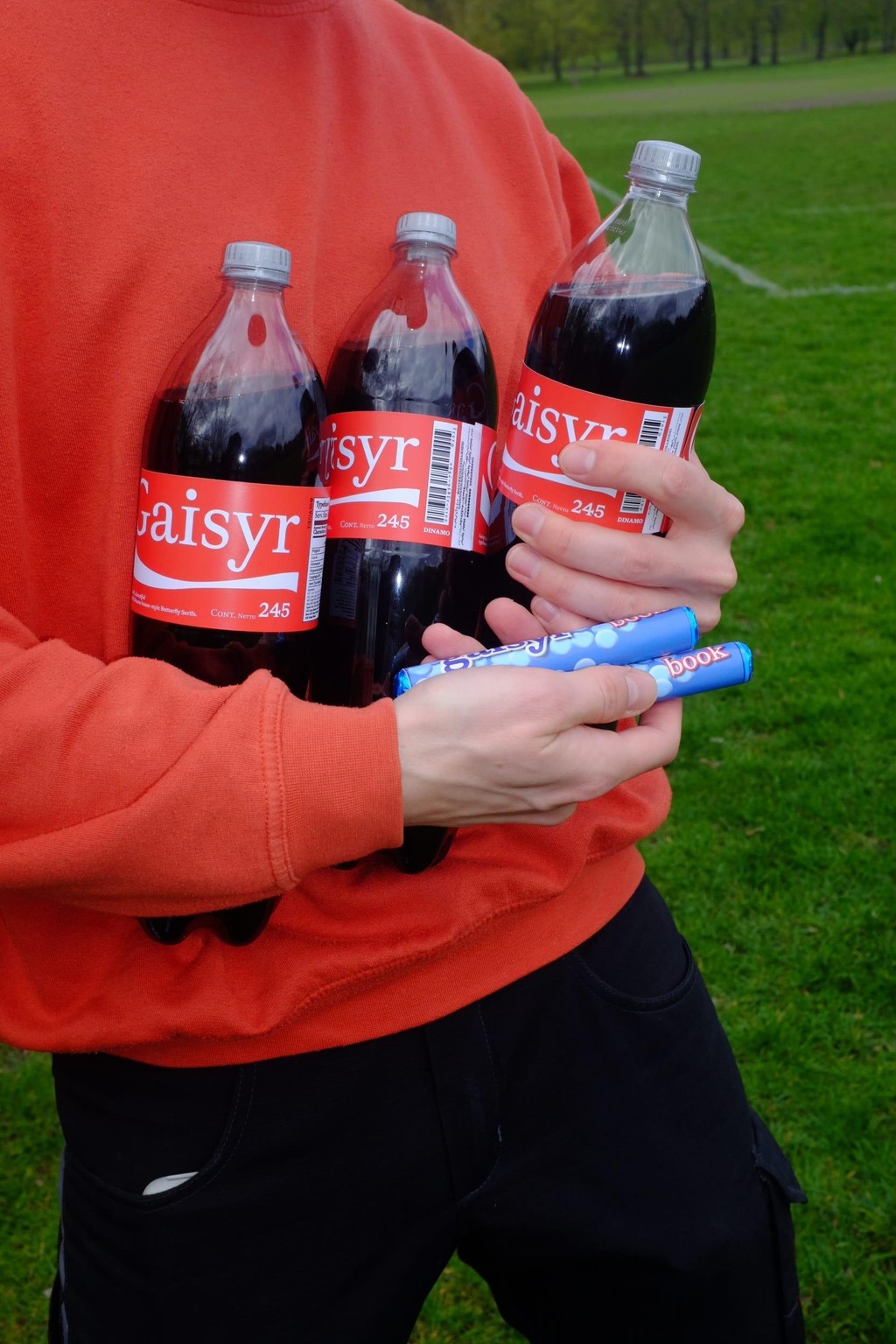
Gaisyr
Features
Simple Serifs
Redlight
Discretionary Ligatures
Lovesick
Swashes
e h r z
About Gaisyr
Gaisyr is a beautiful typeface with Dinamo house-style Butterfly Serifs. It takes its point de départ from sketches by the early 18th Century royal typographer for King Louis XIV, Jacques Jaugeon. A tension between strict geometry and loopy hand-held gestures lives on in its elegant forms. Just close your eyes and imagine the King sitting in his garden, maybe a bit sunburned, surrounded by butterflies and low hanging citrus fruit, sipping on a (glass bottle) of Coke®. Gaisyr available in proportional, monospaced and semi-monospaced styles.